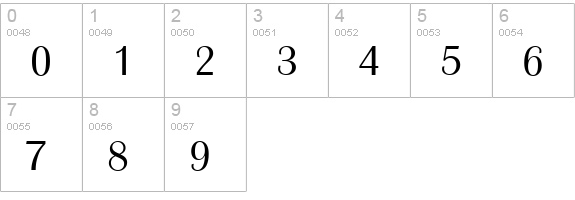
GrenobleSerial-Light-Regular Font Details
GrenobleSerial-Light-Regular is a refined, elegant variant in the GrenobleSerial typeface family \xE2\x80\x94 well suited to elegant body text, refined sub-headings, and luxury branding.
GrenobleSerial-Light-Regular is a versatile and elegant font that is perfect for a wide range of design projects. With its clean lines and modern aesthetic, this typeface exudes sophistication and professionalism. The light weight of the font adds a touch of delicacy and refinement to any text it is applied to. Best of all, GrenobleSerial-Light-Regular is available for free download at FontsMarket.com. This means that you can easily access this high-quality font without any cost, making it a valuable addition to your design toolkit. Whether you are working on branding materials, editorial layouts, or web design, GrenobleSerial-Light-Regular is sure to enhance the visual impact of your projects. Download it today and elevate your designs with this exquisite typeface.